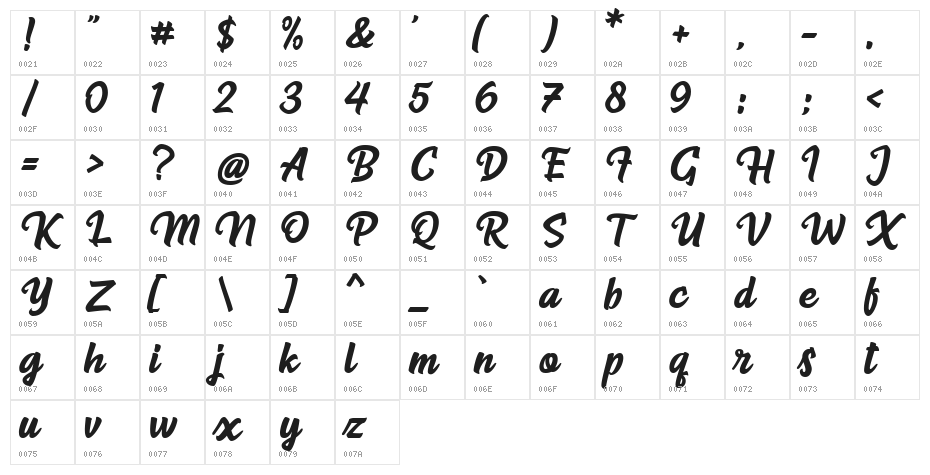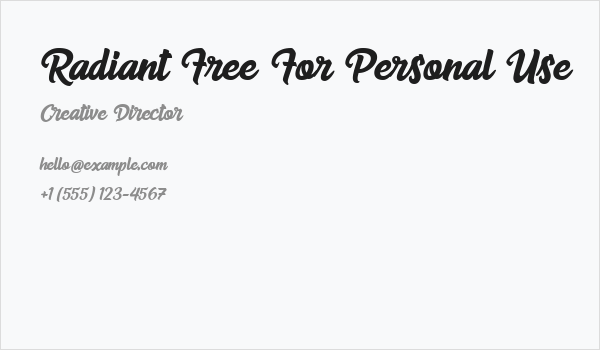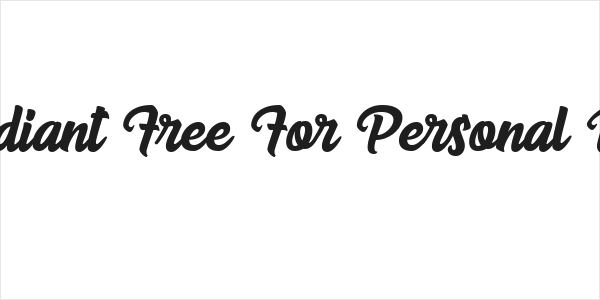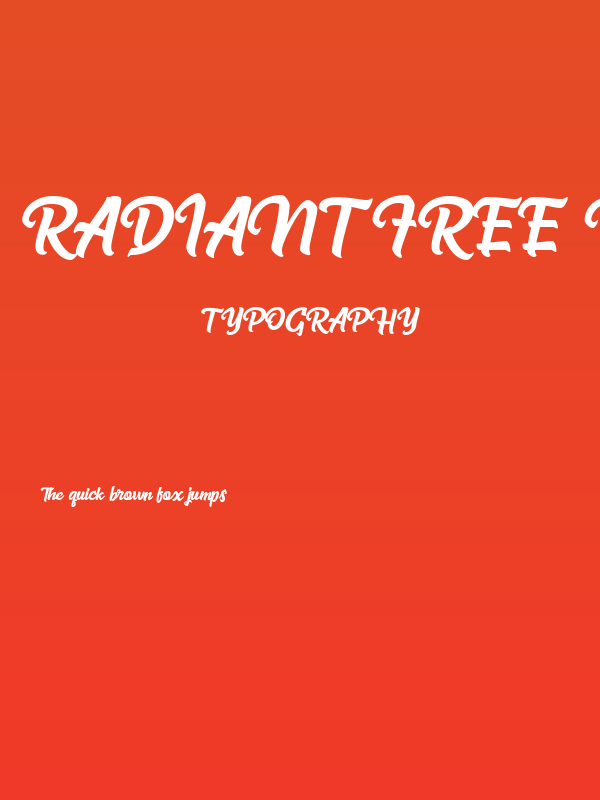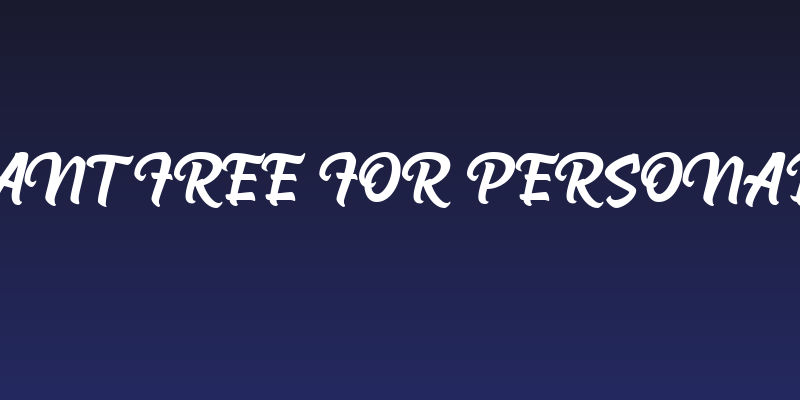
Radiant Free For Personal Use Font
Radiant Free For Personal Use Description
This font features a bold and expressive script style, characterized by its flowing, cursive letterforms. The uppercase letters exhibit a dynamic slant, adding a sense of movement and elegance. The lowercase letters maintain a consistent rhythm, with smooth connections between strokes that enhance readability. The numerals are bold and clear, matching the overall aesthetic of the font. Special characters are well-integrated, maintaining the script's fluidity. This font's boldness and style make it ideal for creating impactful designs.
| Proposed Projects | Ideal for branding, logos, invitations, and headlines where a touch of elegance and personality is desired. |